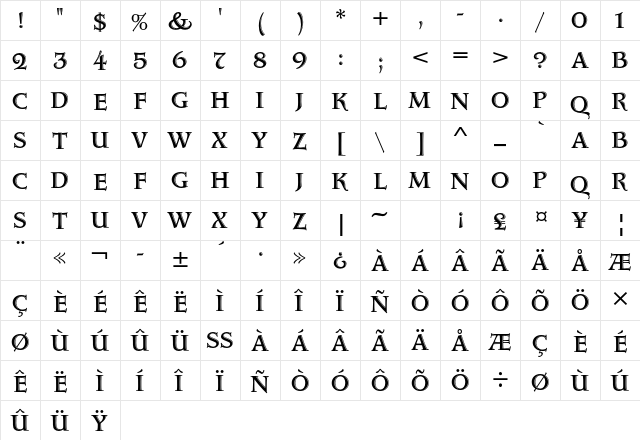
Aquitaine Initials Std Regular Font Preview
Aquitaine Initials Std Regular
Aquitaine Initials Std Regular Font Details
| Designer | Steven Albert |
Design Context for Aquitaine Initials Std Typeface
Aquitaine Initials Std takes a measured approach to typography — its balanced proportions and neutral character make it a reliable workhorse for both digital and print work.